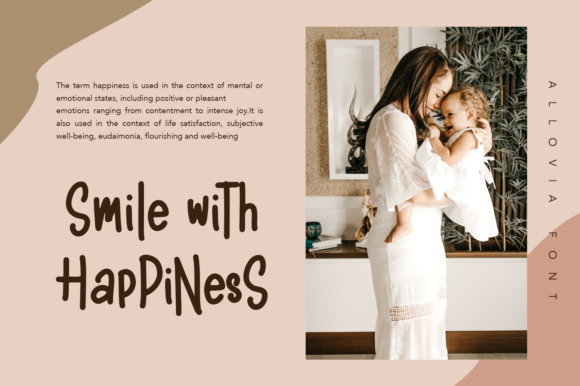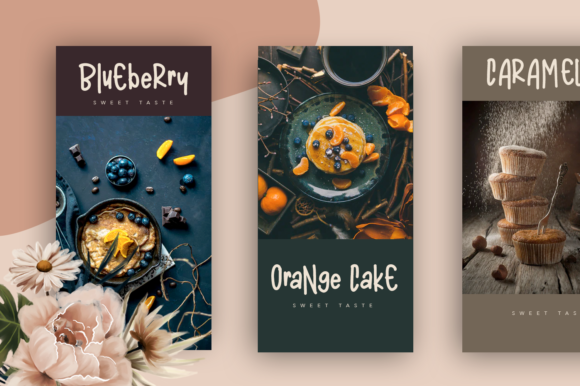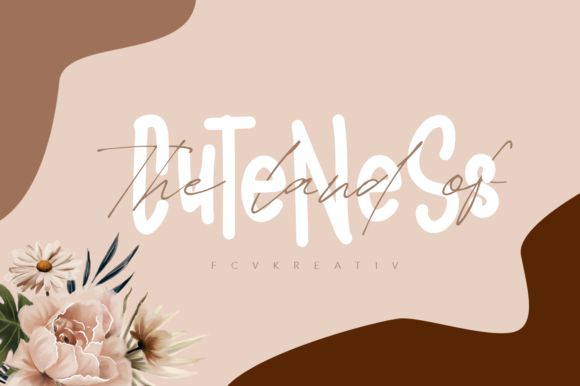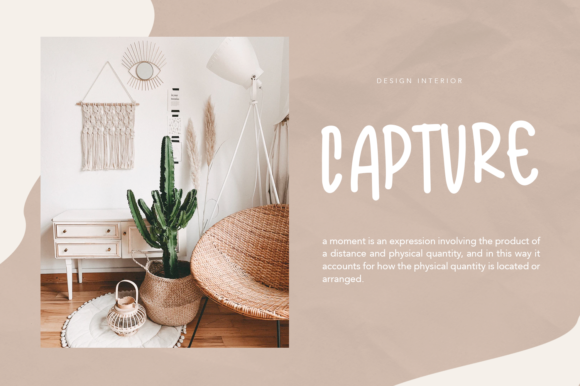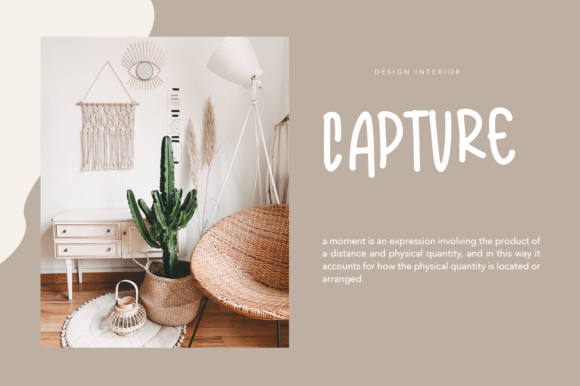
Introducing Allovia Font: The Fun and Friendly Handwritten Font for Your Design Needs
Are you tired of using the same old fonts for your designs? Look no further than Allovia Font, a fun and friendly handwritten font that’s perfect for adding a personal touch to your projects. With its natural and unique style, Allovia is incredibly fitting for a large pool of designs, making it a versatile and exciting addition to your font collection.
The Characteristics of Allovia Font
Allovia Font is a handwritten font that’s designed to look and feel natural. Its unique style is characterized by:
- Fluid and dynamic letterforms that give the font a sense of movement and energy
- A friendly and approachable tone that’s perfect for designs that need a personal touch
- A versatile style that works well for a wide range of designs, from playful and whimsical to elegant and sophisticated
What Makes Allovia Font So Versatile?
Allovia Font is incredibly versatile, making it perfect for a wide range of design projects. Here are just a few examples of how you can use Allovia:
- Branding and Packaging: Use Allovia to add a personal touch to your branding and packaging designs. The font’s friendly and approachable tone makes it perfect for food, beverage, and lifestyle brands.
- Wedding and Event Design: Allovia is a great choice for wedding and event designs, such as invitations, programs, and signage. The font’s elegant and sophisticated style makes it perfect for formal events.
- Digital Design: Use Allovia in your digital designs, such as social media graphics, blog posts, and email newsletters. The font’s clear and readable style makes it perfect for digital media.
- Crafting and DIY: Allovia is also perfect for crafters and DIY enthusiasts. Use the font to add a personal touch to your handmade projects, such as signs, cards, and gift tags.
Tips for Using Allovia Font
Here are a few tips for using Allovia Font in your designs:
- Pair it with other fonts: Allovia pairs well with other fonts, such as sans-serif fonts like Arial or Helvetica. Experiment with different font combinations to find the perfect look for your design.
- Use it in different sizes: Allovia looks great in a variety of sizes, from large headings to small body text. Experiment with different sizes to find the perfect fit for your design.
- Add some color: Allovia looks great in a variety of colors, from bright and bold to soft and pastel. Experiment with different colors to find the perfect look for your design.
Allovia Font is a fun and friendly handwritten font that’s perfect for designers and crafters looking to add a personal touch to their projects. With its natural and unique style, Allovia is incredibly fitting for a large pool of designs, making it a versatile and exciting addition to your font collection. Whether you’re designing for branding, wedding, digital, or crafting needs, Allovia is a great choice.